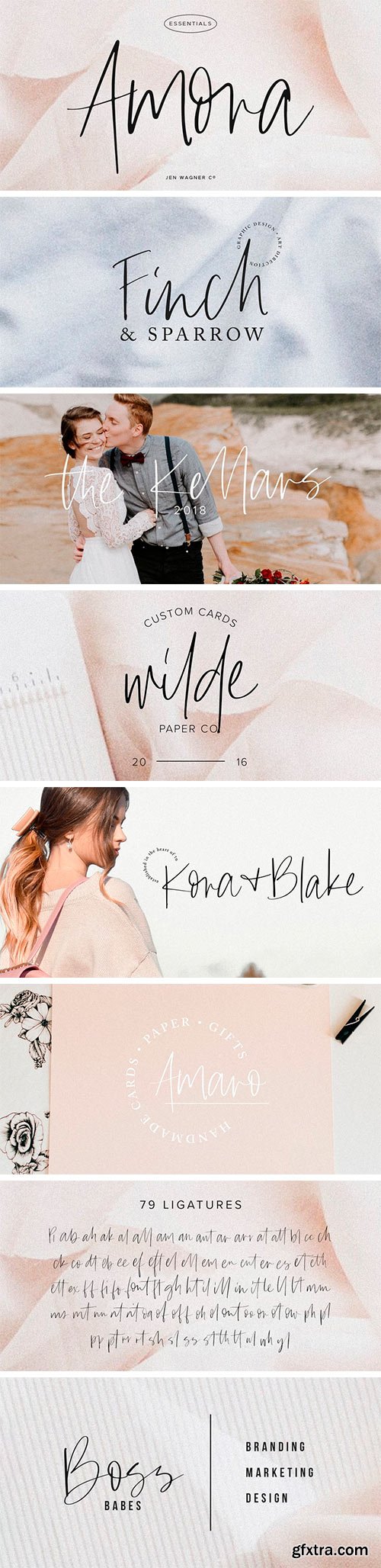
Amora is a messy, feminine, carefree script that is perfect for logos, posters, signage, and more! Comes with 79 ligatures for a totally unique hand-written feel!